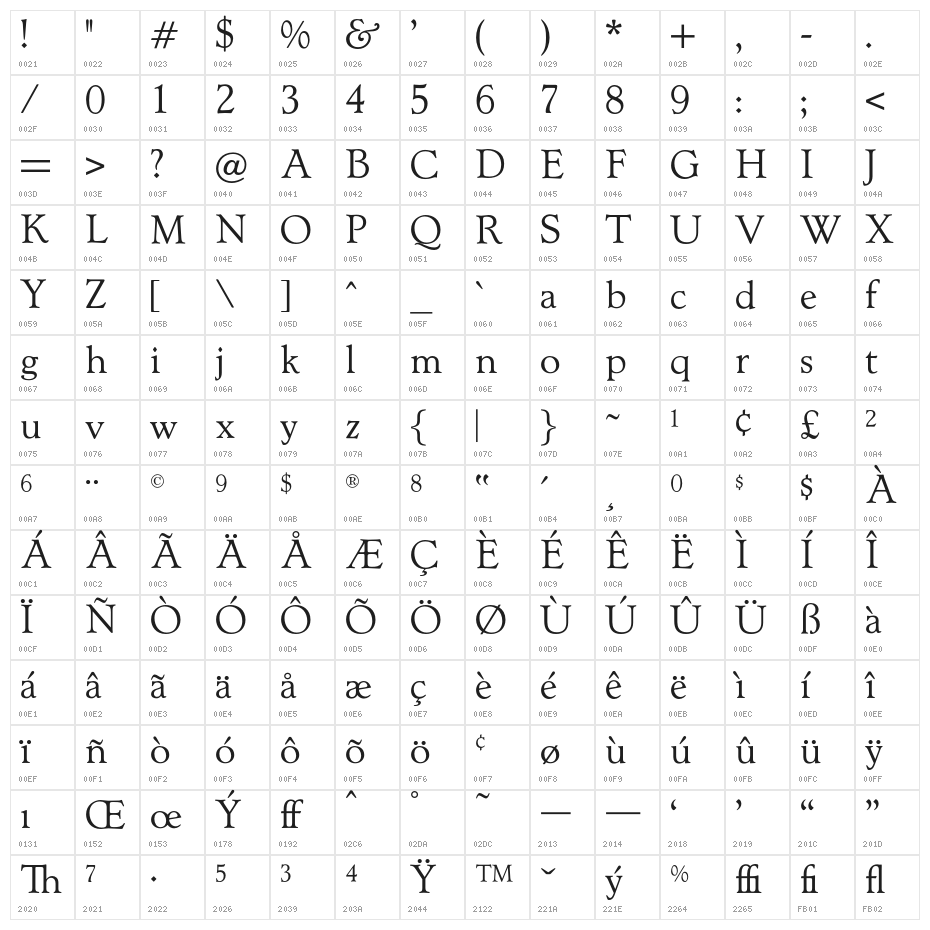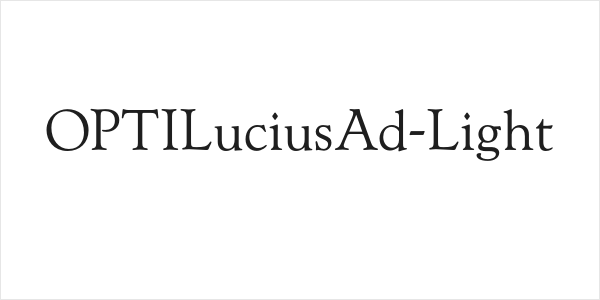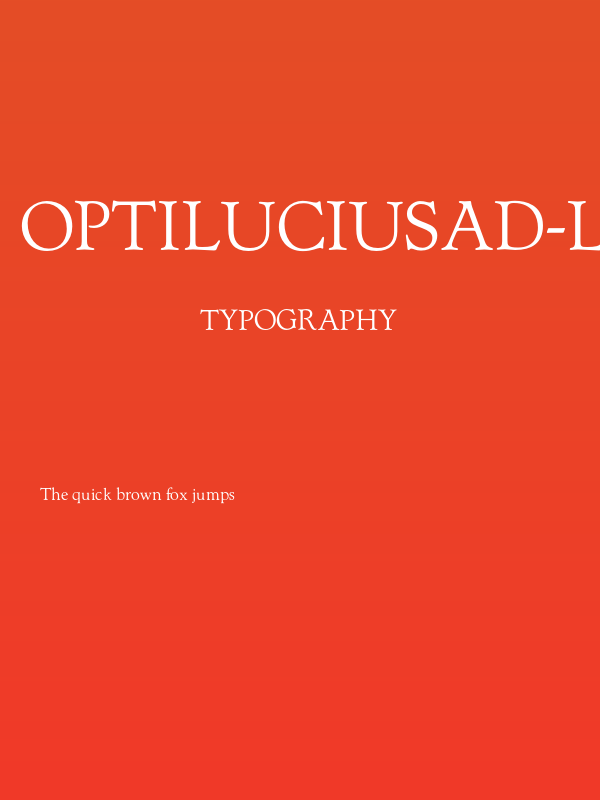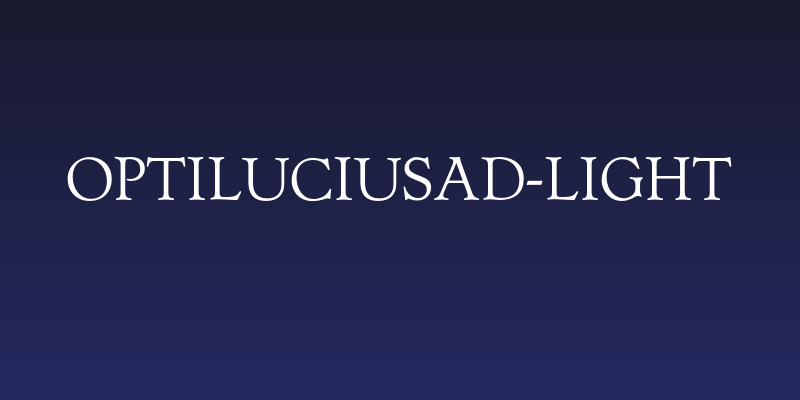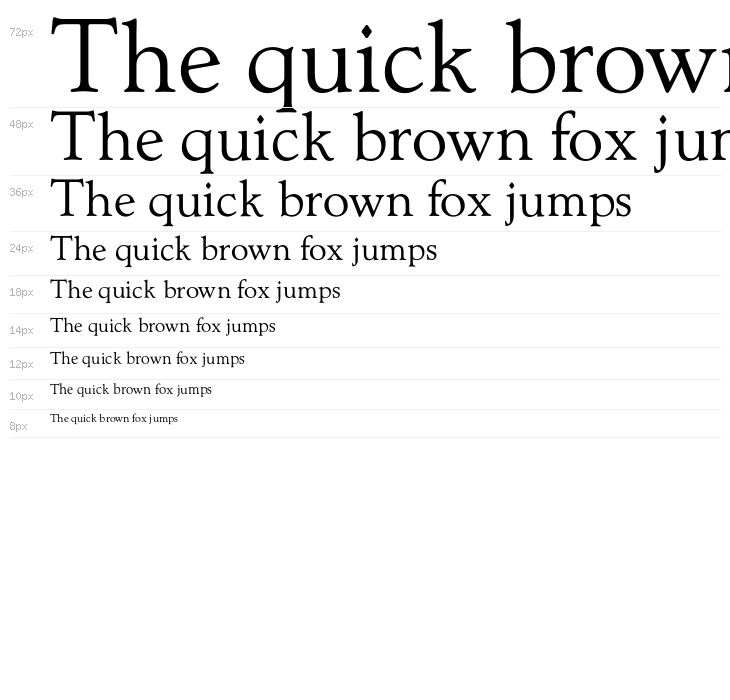
OPTILuciusAd-Light Font
OPTILuciusAd-Light Description
This typeface embodies a classic serif style with elegant and refined strokes. The characters feature subtle variations in line thickness, giving it a sophisticated and timeless appearance. The serifs are well-defined, adding a touch of formality and tradition. The uppercase letters are stately and balanced, while the lowercase letters maintain a harmonious flow. The numerals are clear and distinct, ensuring readability. Special characters are crafted with precision, enhancing the font's versatility. Overall, this font exudes a sense of elegance and professionalism, making it suitable for a variety of applications.